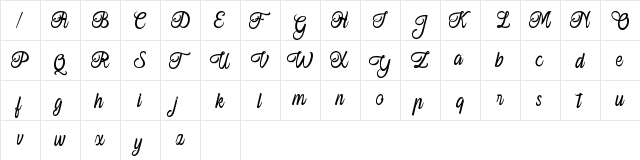
Ferishley Sunshine Regular
Regular ·  Holydie Studio ·
DesignerHolydie Studio
Design Context for Ferishley Sunshine Typeface
Ferishley Sunshine is a composed and adaptable typeface that performs quietly and consistently across a wide range of design contexts.